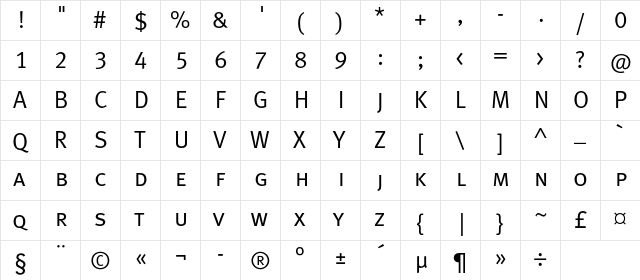
MetaNormalCapsLFC Regular Font Preview
MetaNormalCapsLFC Regular
Design Context for MetaNormalCapsLFC Typeface
MetaNormalCapsLFC offers clean, dependable letterforms without strong stylistic allegiance, making it a practical choice for designers who need flexibility.